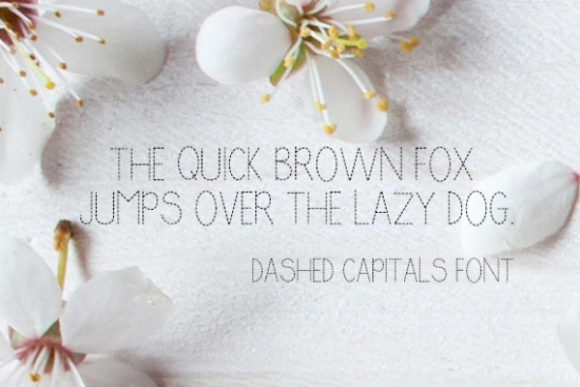
Introducing Dashed Capital Font: A Playful and Nostalgic Sans Serif Font
Are you looking for a font that can add a touch of vintage charm to your design projects? Look no further than the Dashed Capital Font. This sans serif font is designed to evoke a sense of playfulness and nostalgia, making it perfect for designers and crafters who want to create unique and eye-catching designs.
The Characteristics of Dashed Capital Font
Dashed Capital Font is a sans serif font, which means it doesn’t have the small lines or flourishes that are commonly found at the ends of letters in serif fonts. This gives it a clean and modern look that’s perfect for designs that need to be both stylish and easy to read.
One of the standout features of Dashed Capital Font is its use of dashes instead of traditional letter strokes. This gives the font a distinctive and playful feel that’s reminiscent of old-fashioned signs and posters.
The Benefits of Using Dashed Capital Font
So why should you choose Dashed Capital Font for your design projects? Here are just a few benefits of using this versatile and charming font:
- Retro aesthetic: Dashed Capital Font has a distinctly vintage feel that’s perfect for designs that need a touch of nostalgia. Whether you’re creating a logo, poster, or social media graphic, this font is sure to add a dash of retro charm.
- Playful personality: The use of dashes instead of traditional letter strokes gives Dashed Capital Font a playful and whimsical feel that’s perfect for designs that need to be fun and engaging.
- Easy to read: Despite its playful personality, Dashed Capital Font is still easy to read, making it perfect for designs that need to communicate a message clearly and effectively.
- Versatile: Dashed Capital Font can be used for a wide range of design projects, from logos and posters to social media graphics and craft projects.
How to Use Dashed Capital Font in Your Designs
Dashed Capital Font is a versatile font that can be used in a wide range of design projects. Here are a few ideas to get you started:
- Logos: Use Dashed Capital Font to create a unique and eye-catching logo for your business or brand.
- Posters: Add a touch of vintage charm to your posters with Dashed Capital Font.
- Social media graphics: Use Dashed Capital Font to create fun and engaging social media graphics that are sure to grab attention.
- Craft projects: Dashed Capital Font is perfect for craft projects like scrapbooking, card making, and DIY signage.
Tips for Getting the Most Out of Dashed Capital Font
Here are a few tips for getting the most out of Dashed Capital Font:
- Experiment with different colors: Dashed Capital Font looks great in a wide range of colors, so don’t be afraid to experiment and find the perfect color scheme for your design.
- Mix and match with other fonts: Dashed Capital Font pairs well with a wide range of other fonts, so feel free to mix and match to create a unique and eye-catching design.
- Use it sparingly: While Dashed Capital Font is a versatile font, it can be overwhelming if used too much. Use it sparingly to add a touch of vintage charm to your design.
Dashed Capital Font is a playful and nostalgic sans serif font that’s perfect for designers and crafters who want to add a touch of vintage charm to their design projects. With its distinctive use of dashes instead of traditional letter strokes, this font is sure to add a dash of retro personality to any design. So why not give it a try and see how it can elevate your designs?